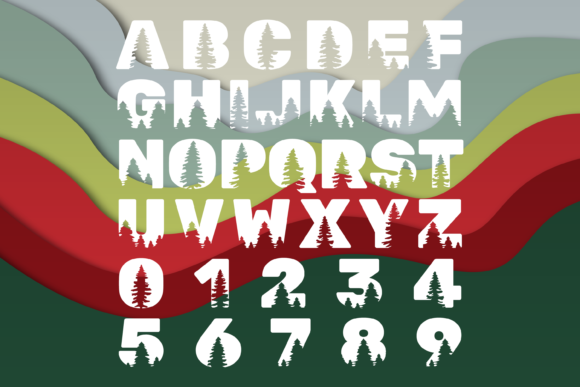
Christmas Tree Font
Christmas Tree is an incredibly cool decorative font. Whether you use it for cartoon-related designs, children’s games, or just any creation that requires a lovely touch, this font will be an amazing choice.